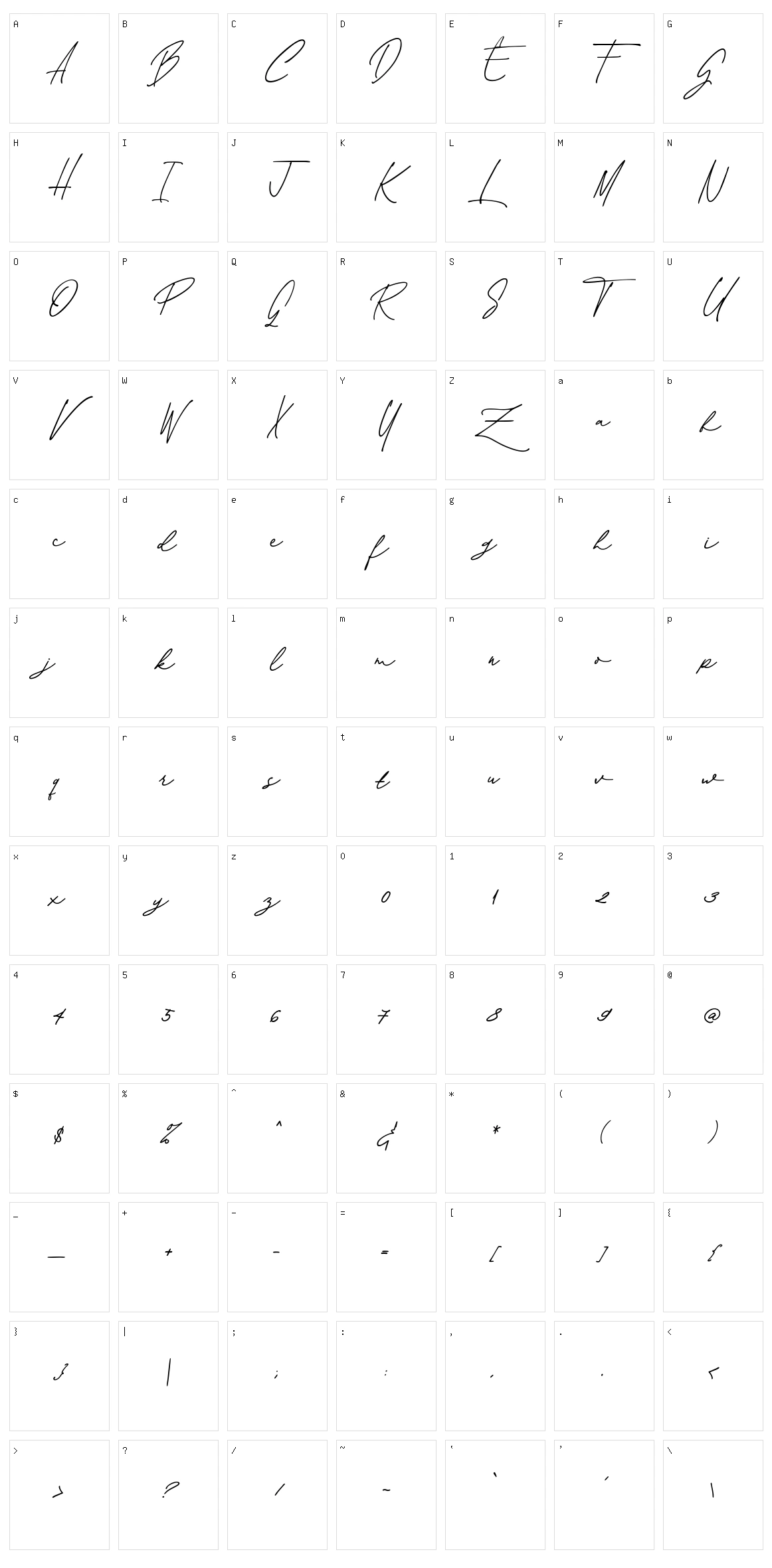
The free font Kosakatta is carefully designed by Telllu, showcasing a thoughtful balance of creativity and usability and falls under the Script font style. When you download the ZIP file, it contains only 60.17 KB of font files, making it lightweight and quick to download. Please review the license details below to understand permitted usage and distribution rights. If license information is not available, we recommend using this font for personal projects only or contacting the author directly for commercial usage permissions.